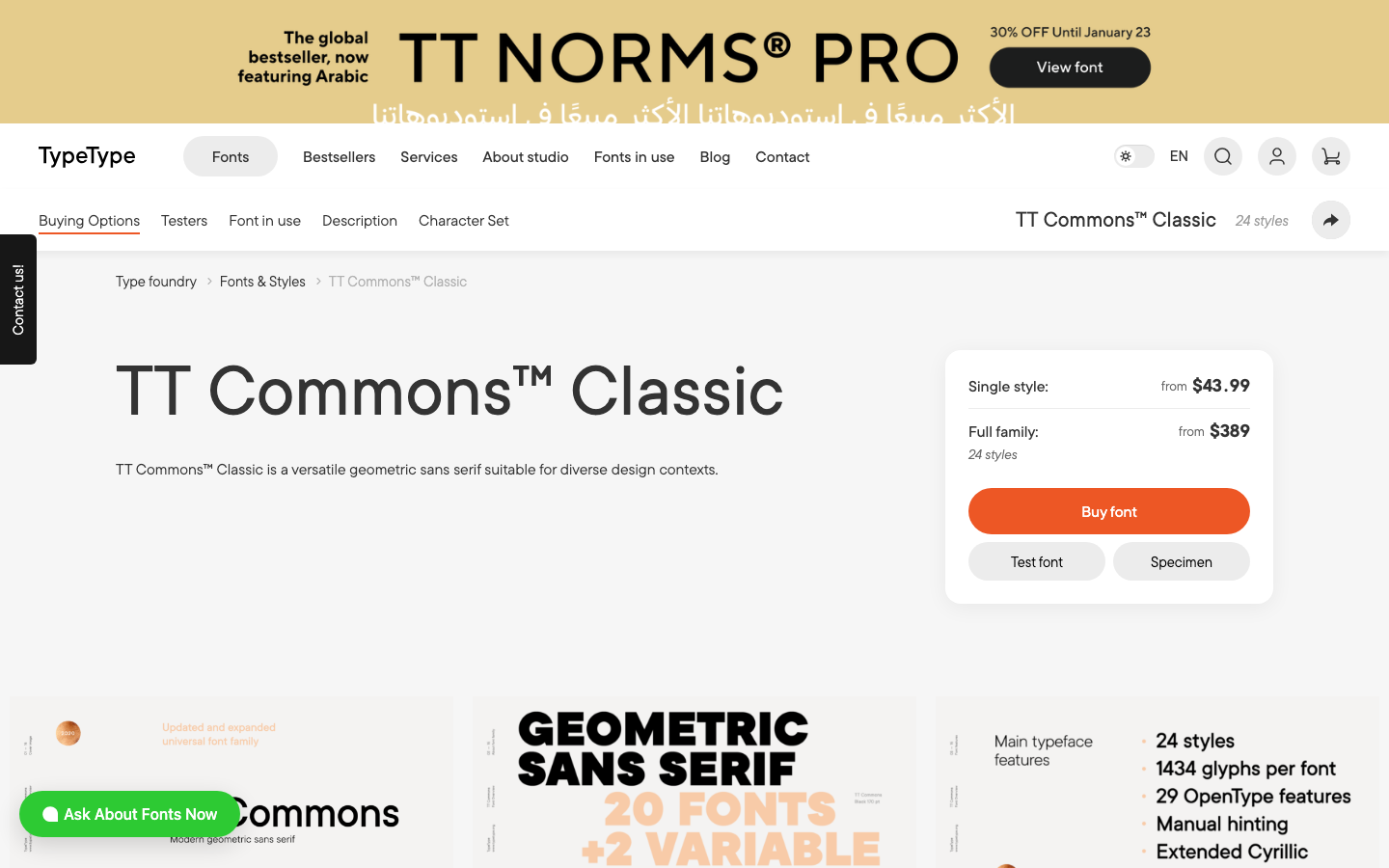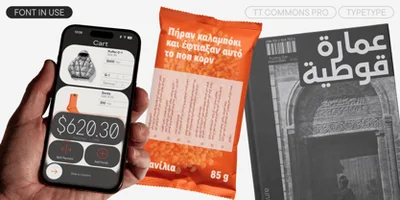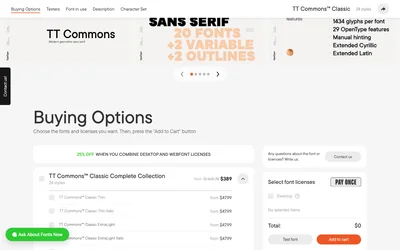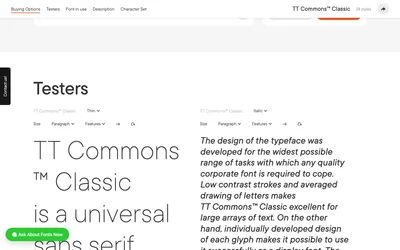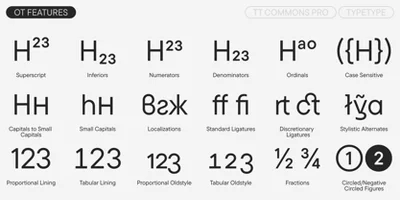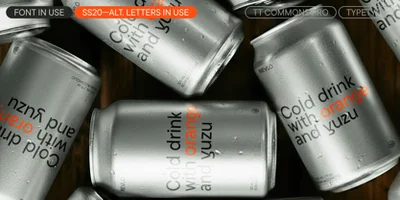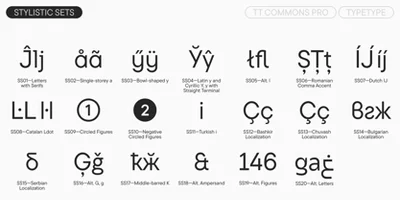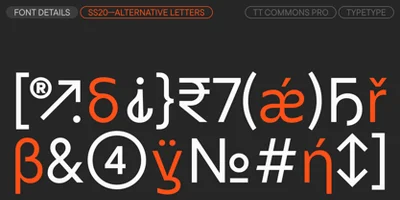
Acumin vs TT Commons
Acumin and TT Commons are both sans-serif typefaces sharing a neo-grotesque foundation. Compare which suits your Ui project.
Design overlap:67%
Acumin
Neo-Grotesque
Modern
TT Commons
Neo-Grotesque
ModernMinimal
Acumin
TT Commons
| Feature | Acumin | TT Commons |
| Language Support | latin, latin-extended | latin, latin-extended, cyrillic |
| Source | Adobe | TypeType |
UI Design
Corporate
Applications
Consider: TT Commons
- minimal design character
- Suited for Apps
- From typetype